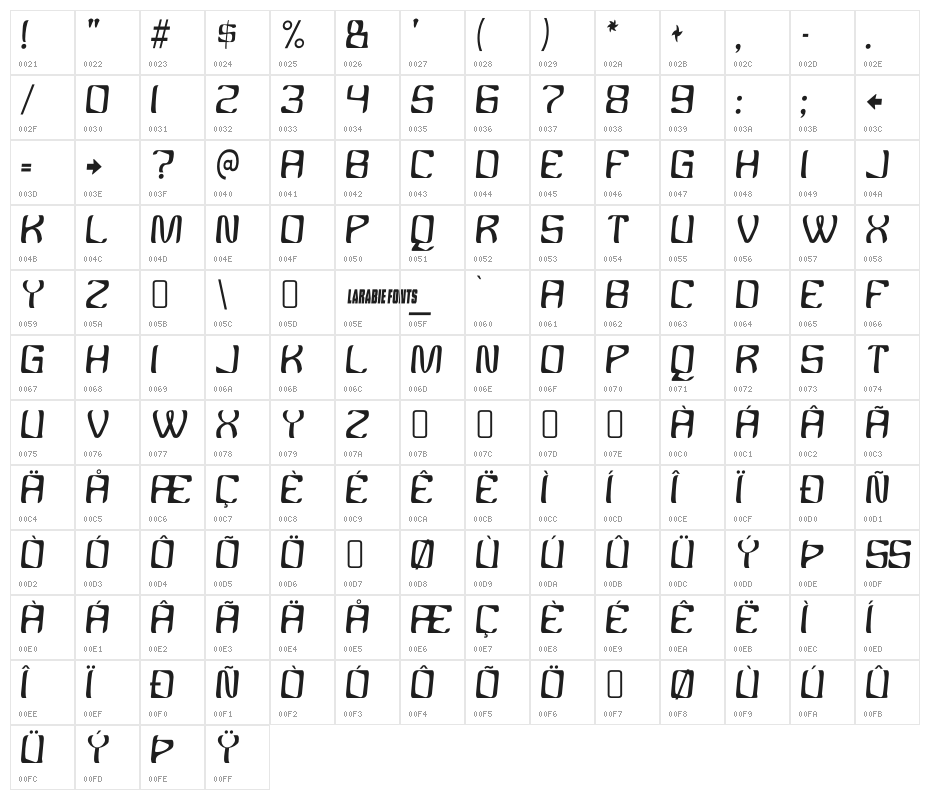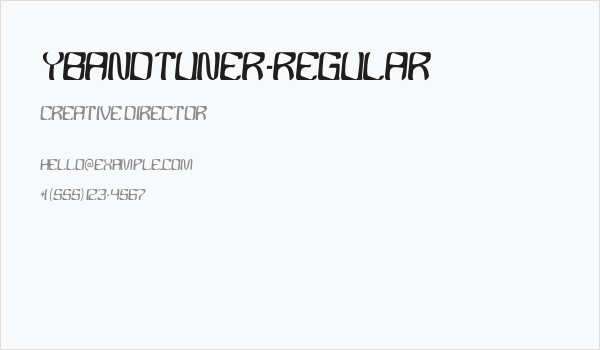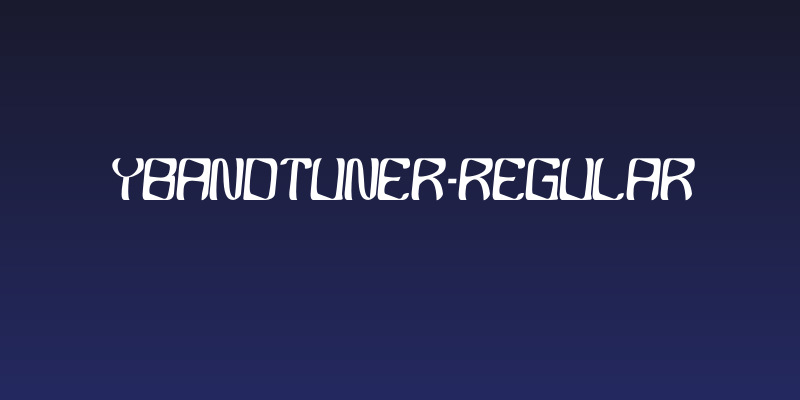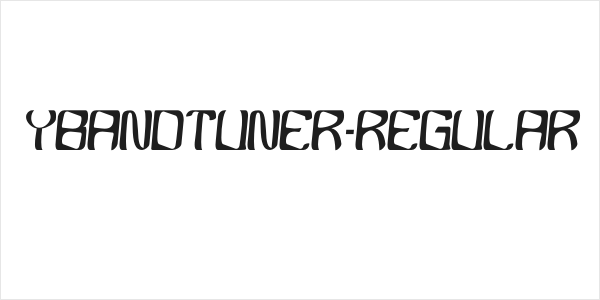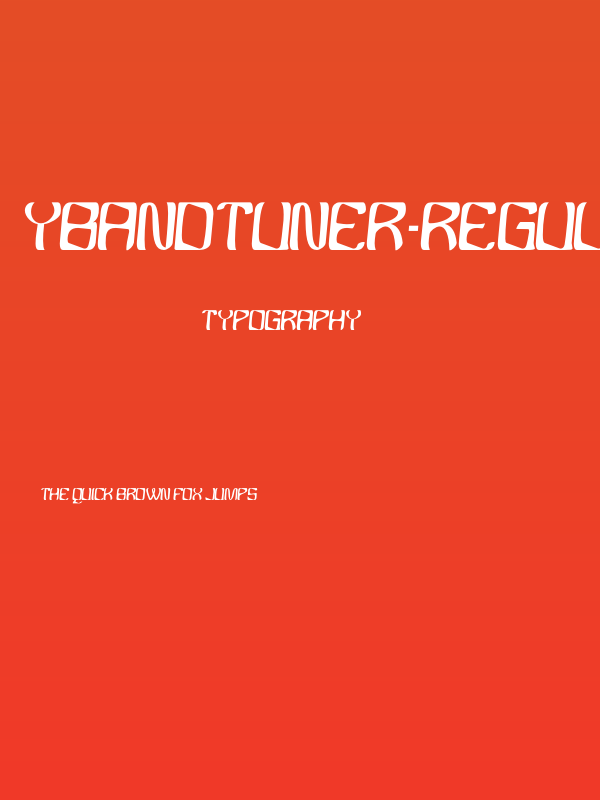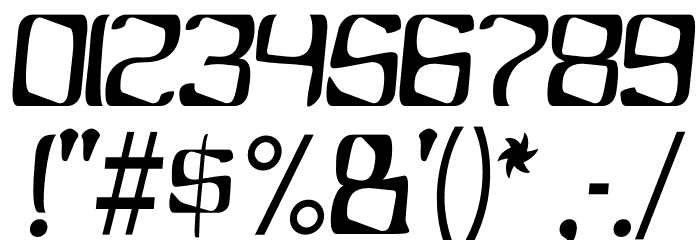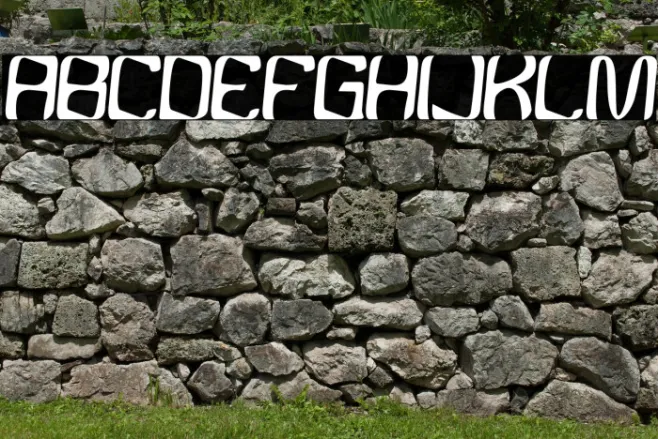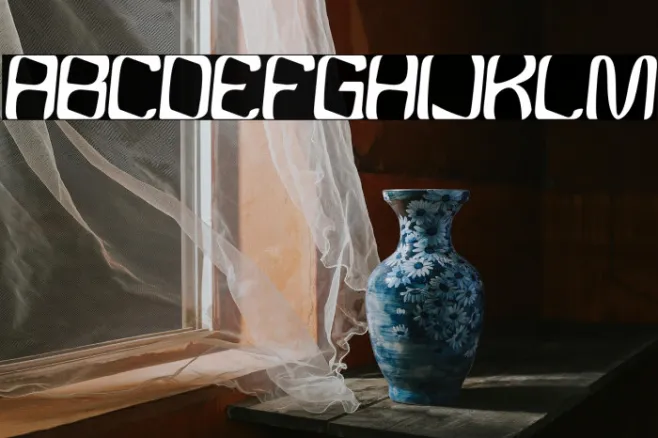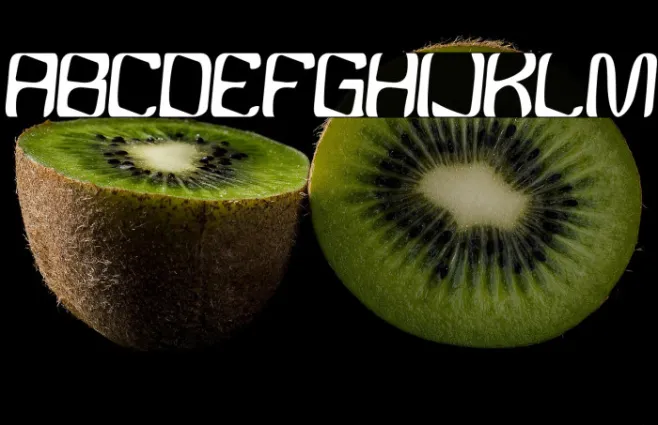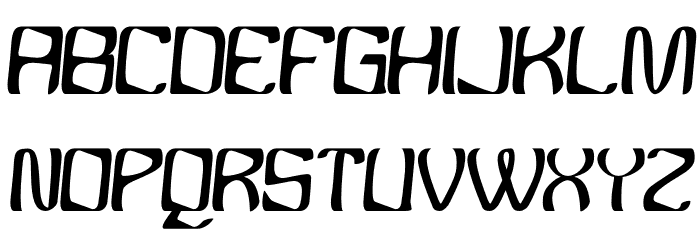
YBandTuner-Regular Font
YBandTuner-Regular Description
This font features a unique and dynamic design with a modern twist. The characters are bold and slightly condensed, giving them a strong presence on the page. The strokes are thick with medium contrast, creating a sense of movement and energy. The uppercase and lowercase letters maintain a consistent style, with angular and geometric shapes that add a contemporary feel. The numerals and special characters are equally bold, ensuring readability and impact. This font is perfect for projects that require a distinctive and eye-catching typeface.
YBANDTUNER-REGULAR UPPERCASE
YBANDTUNER-REGULAR LOWERCASE
YBANDTUNER-REGULAR OTHER CHARS
| Proposed Projects | Ideal for branding, posters, headlines, and any design needing a strong, modern aesthetic. |